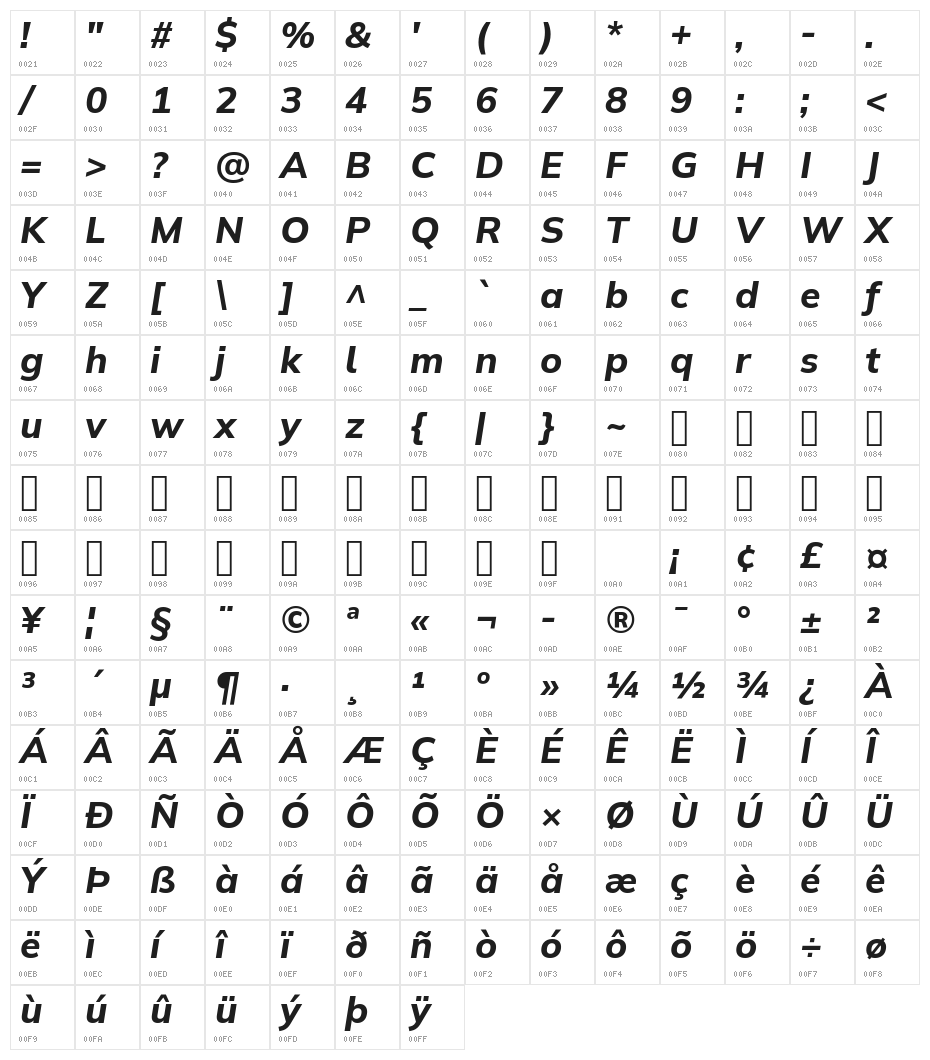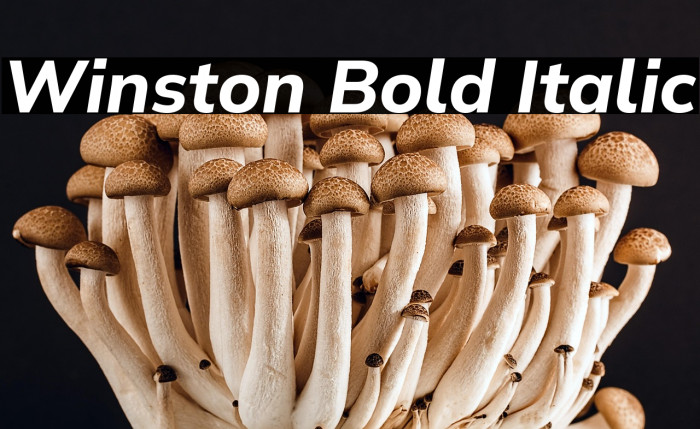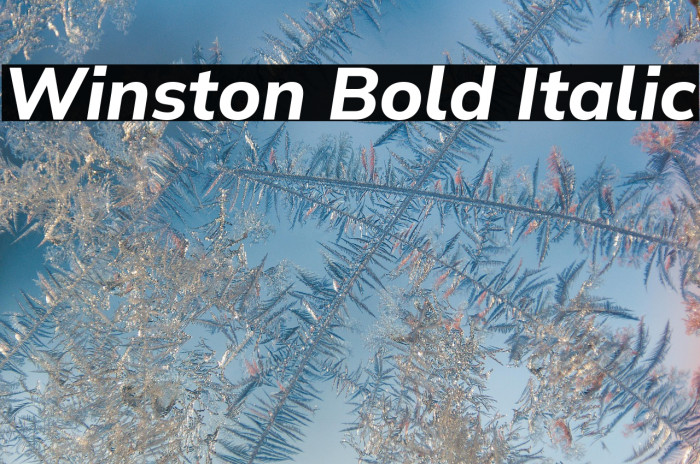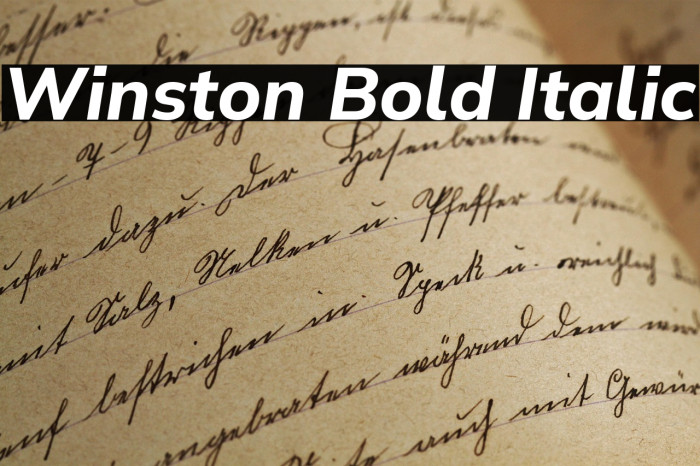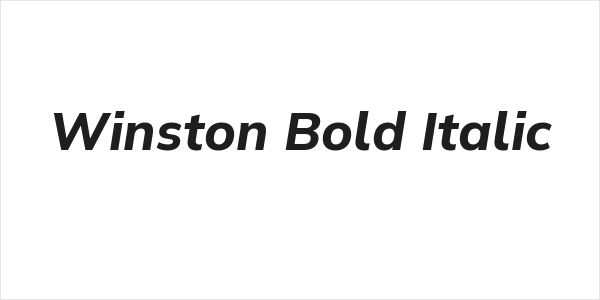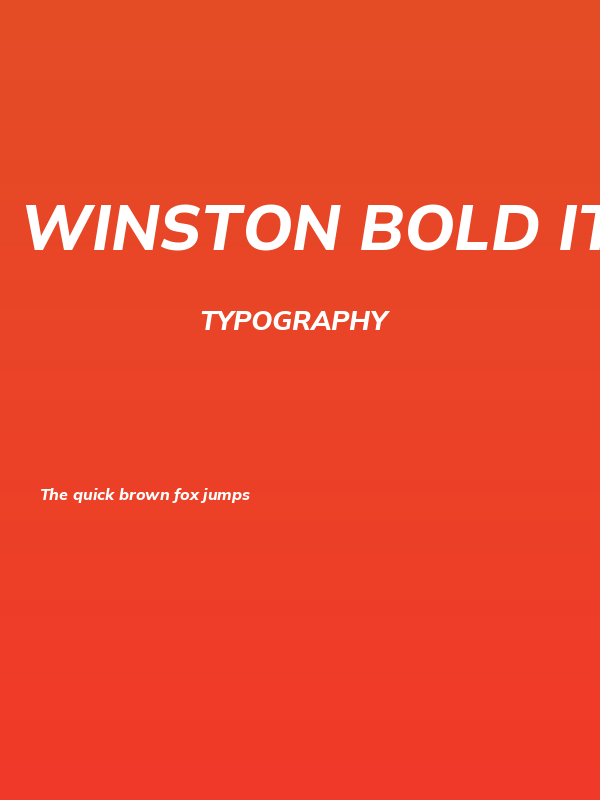
Winston Bold Italic Font
Winston Bold Italic Description
This font exhibits a bold and italic style, characterized by its strong presence and dynamic slant. The uppercase and lowercase letters maintain a consistent thickness, providing a sense of uniformity and balance. The numerals are clear and easily distinguishable, making them suitable for various applications. Special characters are well-defined, adding versatility to the font's usage. The overall design is modern and sleek, with a slight forward tilt that enhances its energetic appearance. This font is ideal for projects that require a bold statement, combining readability with a touch of sophistication.
| Use Case | Headlines, Logos, Advertising |
| Proposed Projects | Ideal for branding, advertising, headlines, and digital media where a strong, modern impression is needed. |